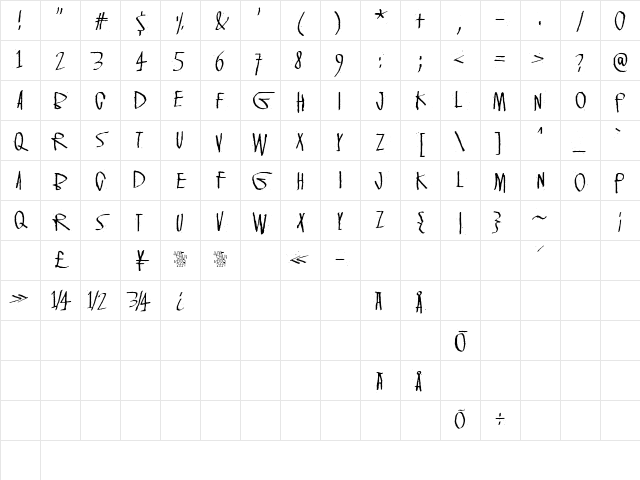
Complete Velvet Dream Regular glyph index. Displaying only characters natively supported by Velvet Dream Regular font.
Velvet Dream is a composed and adaptable typeface that performs quietly and consistently across a wide range of design contexts.